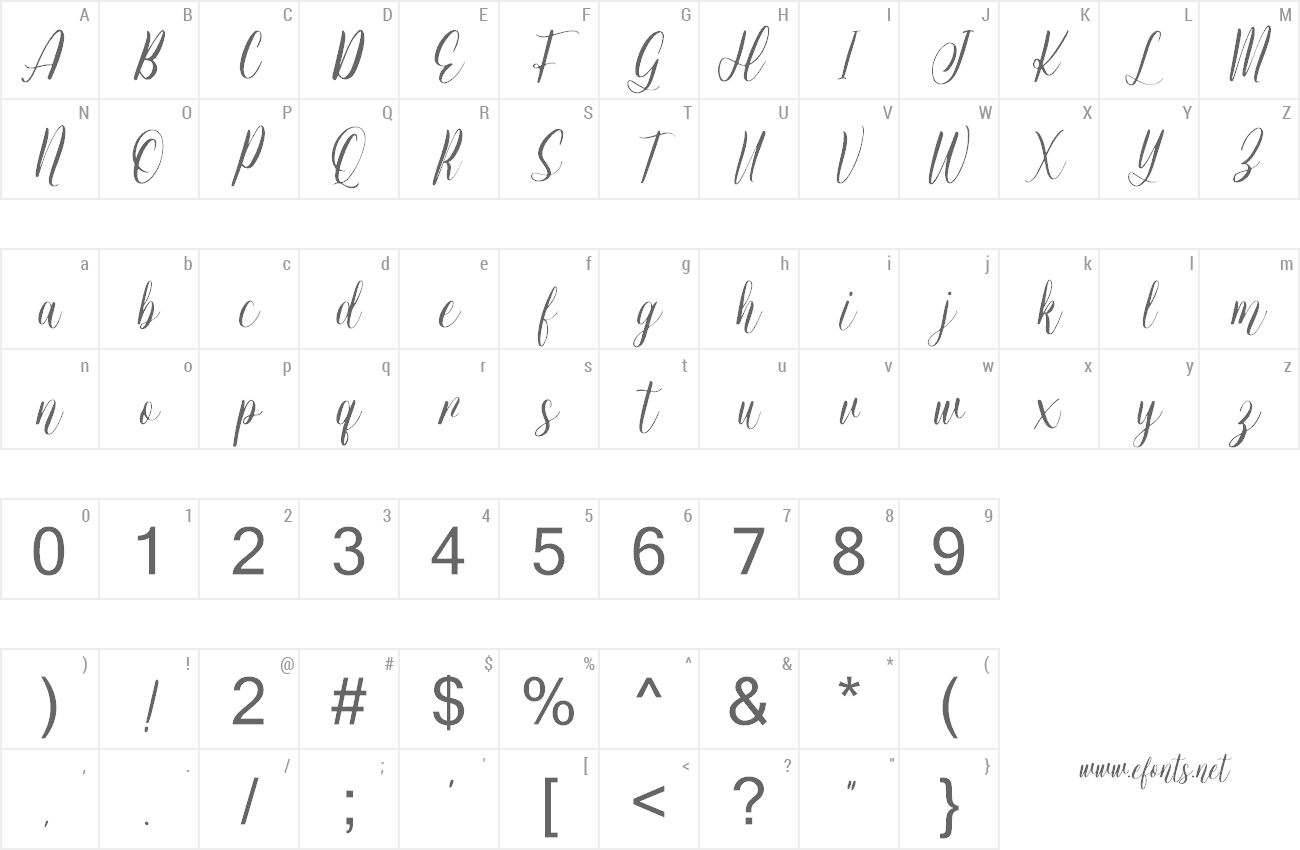
| Font name: | Jessie Odelya |
| Author: | Runsell Studio |
| Note by Runsell Studio | |
Introducing new modern script font, Jessie Odelya a perfectly elegant and beauty font pair, that include two style modern script fonts. This fonts collection are stylish, fresh and ideal for adding the special look to your designs. This font matches applies in some designs such as the logotype, brand, magazine, website or blog headlines, packaging, branding, qoutes, invitation cards, greeting cards, business cards, and wedding more. Jessie Odelya allows full access the characters without having special designing software. This fonts are support for mutilingual languages. NOTE: This demo font is for PERSONAL USE ONLY! But any donation are very appreciated. Paypal account for donation : https://paypal.me/runsell Link to purchase full version and commercial license : https://crmrkt.com/Q2QVpp Please visit our store for more great fonts : https://creativemarket.com/RunsellStudio And follow my instagram for update : https://www.instagram.com/runsell.studio/ Thank you. |